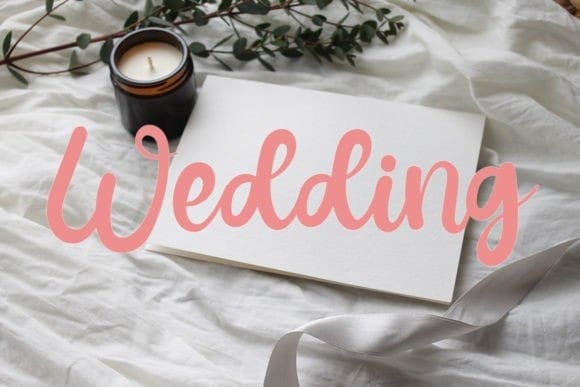
Hello Penthol Font
Hello Penthol Font is a beautiful and sweet font. It is fresh, clean, and elegant. This font will look amazing on a variety of projects such as invitations, cards, social media, bags, clothing, web design, flyers and more.